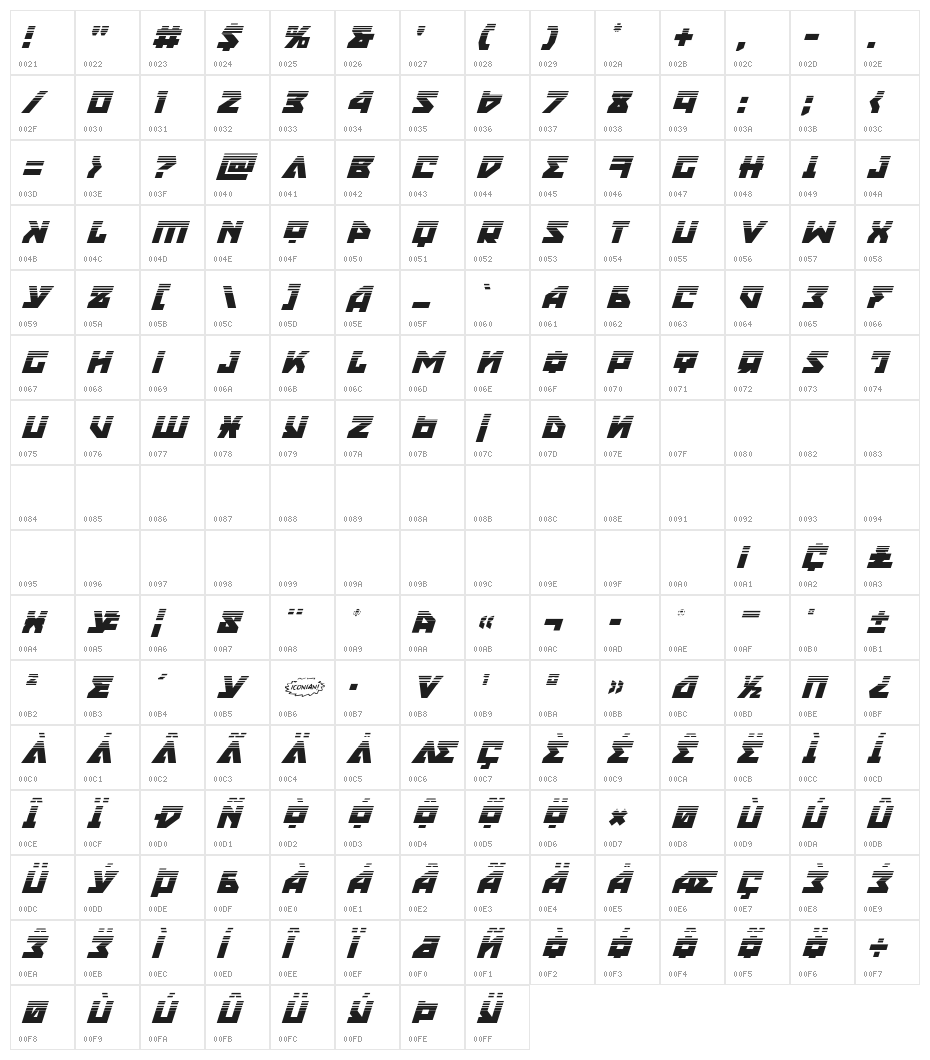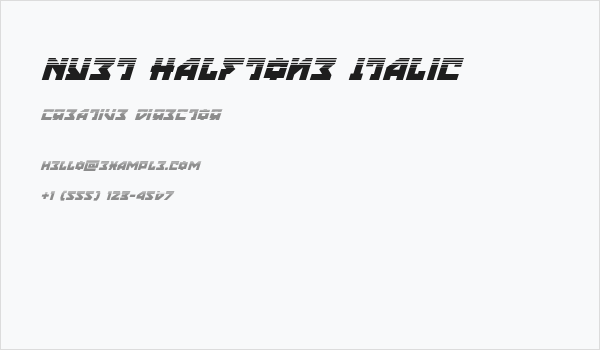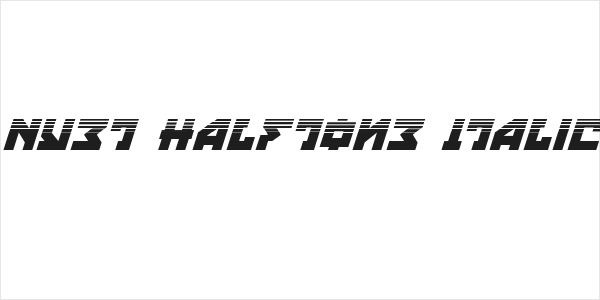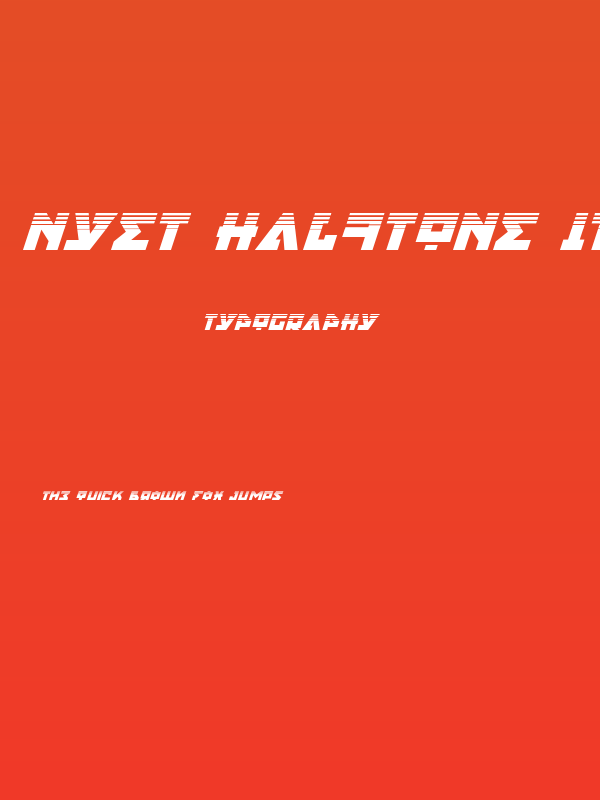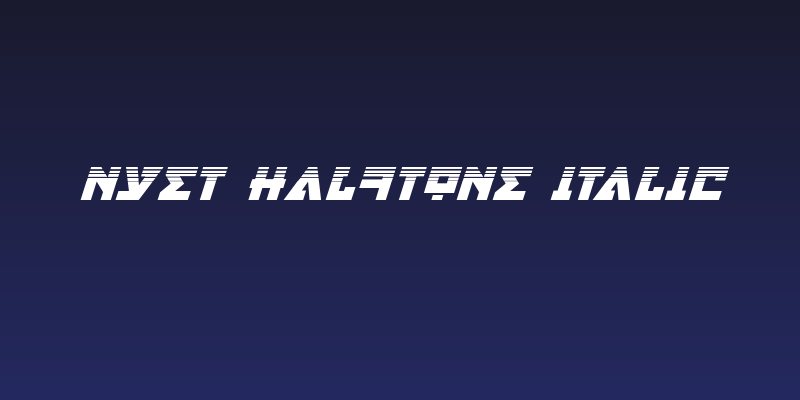
Nyet Halftone Italic Font
Nyet Halftone Italic Description
This font exhibits a bold and futuristic style with a distinct halftone effect, characterized by sharp angles and geometric shapes. The italic slant adds a dynamic and forward-moving appearance, enhancing its modern aesthetic. The uppercase and lowercase letters maintain a consistent design, with each character featuring unique cutouts and lines that create a sense of movement and energy. The numbers and special characters follow the same design principles, ensuring a cohesive look across all elements. The overall style is striking and eye-catching, making it suitable for projects that require a bold statement.
Proposed ProjectsIdeal for sci-fi themed designs, video game titles, posters, and branding that requires a modern and dynamic look.